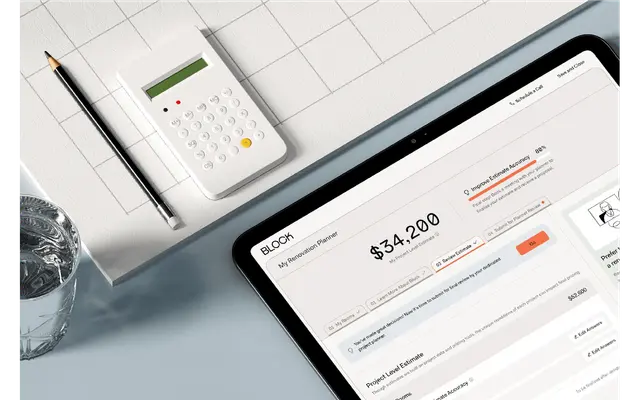
Polar specimen from Frost
A monospaced geometric family from Frost spanning 13 weights, including an unusual Skeleton cut, across 26 styles with full italic coverage.
Spanning Hairline to Black with matching italics, this monospaced geometric family offers an unusually wide tonal range for a mono typeface. The standout Skeleton weight strips letters to their outlines, giving the family a technical, architectural edge that extends its usefulness beyond coding or tabular work into editorial and display contexts. Opentype features include case-sensitive forms, tabular figures and two stylistic sets, pointing to considered typographic utility alongside its formal ambition.
Polar is explicitly labelled as a mono typeface by the foundry. Its specimen shows a geometric, structured letterform consistent with a monospaced geometric sans tradition, with a distinctive Skeleton weight suggesting an architectural design approach.